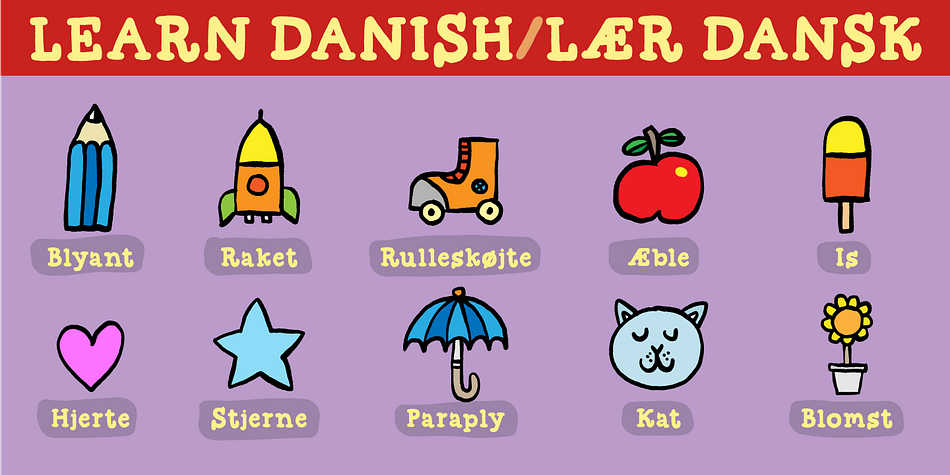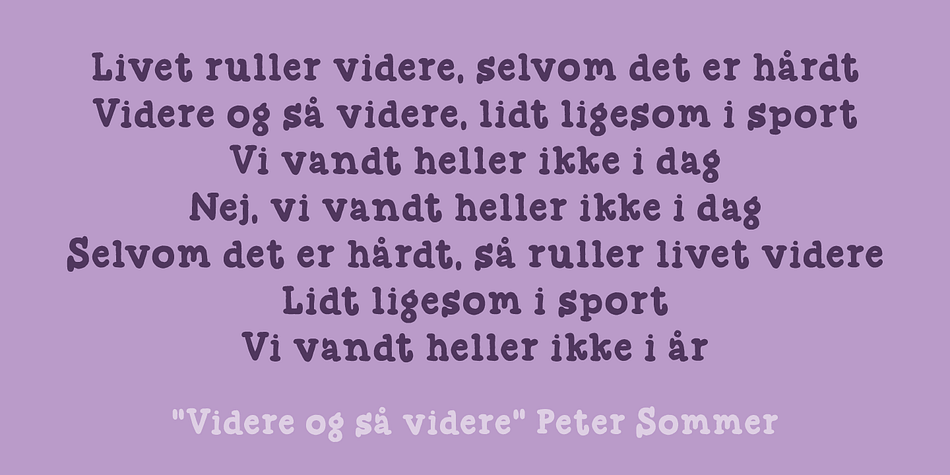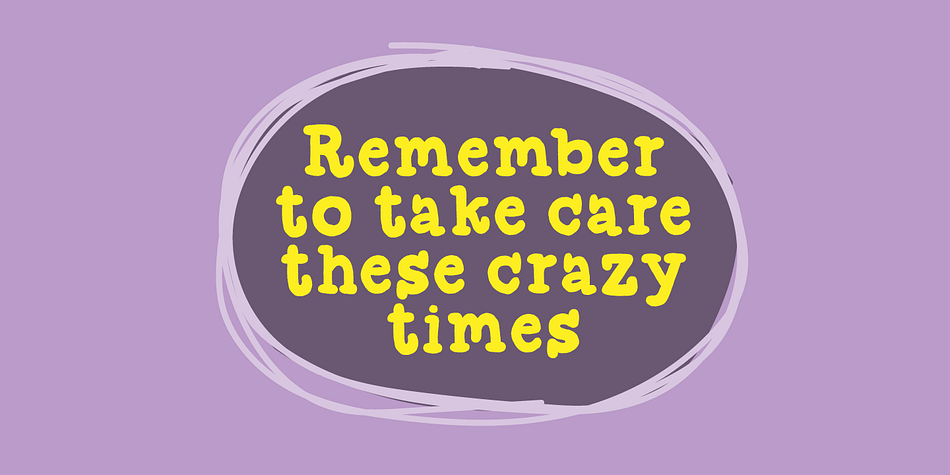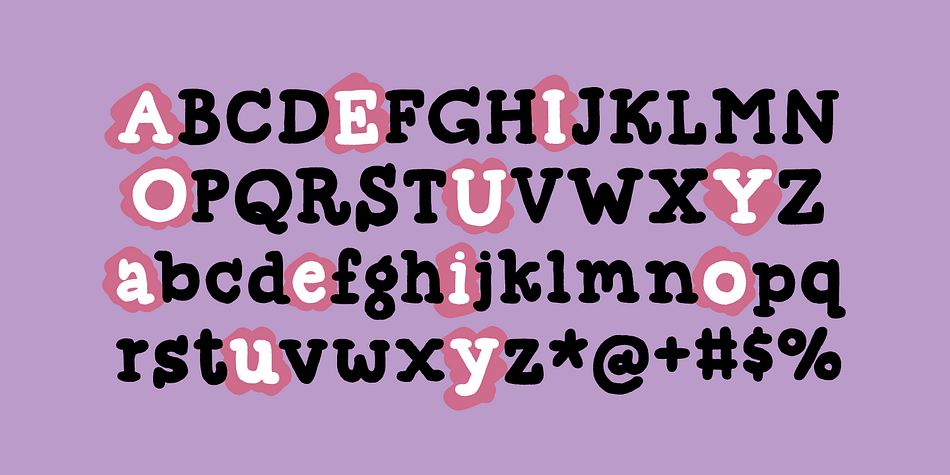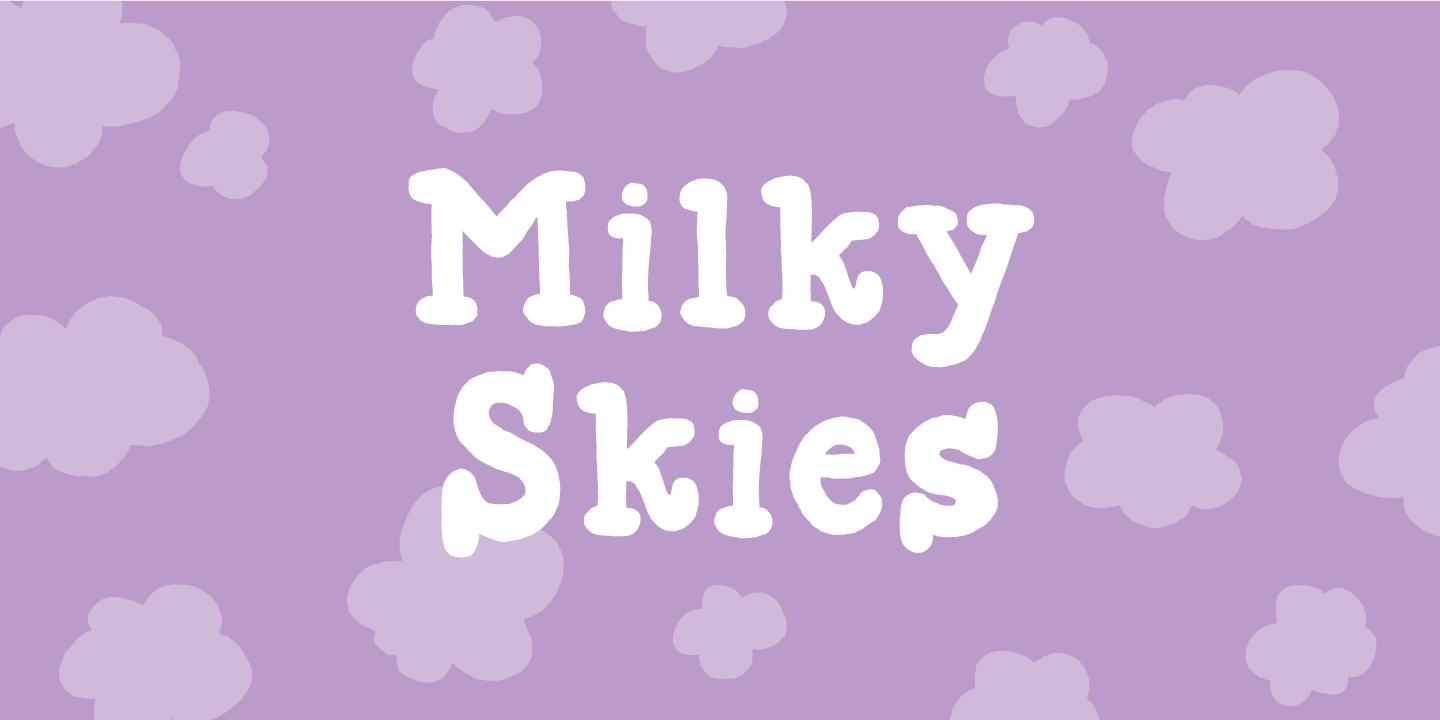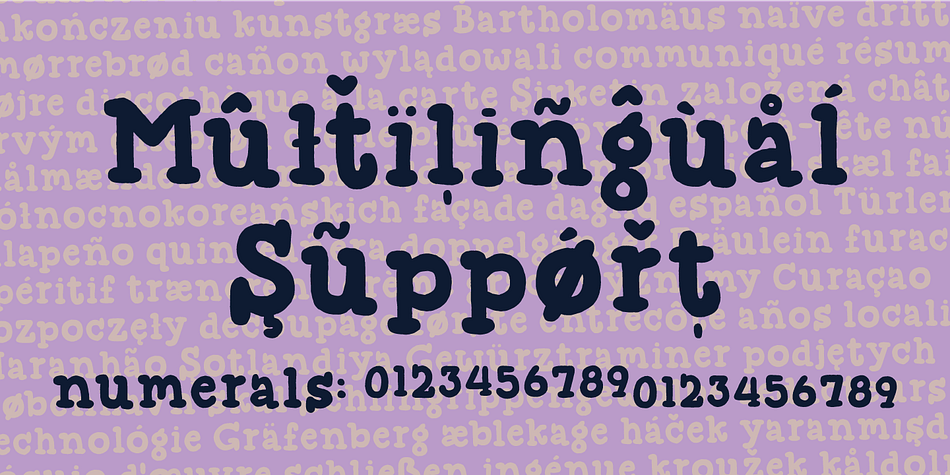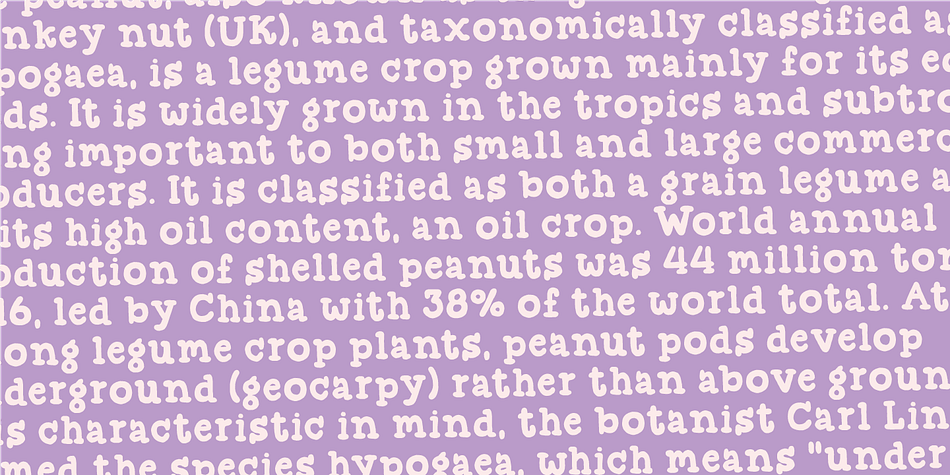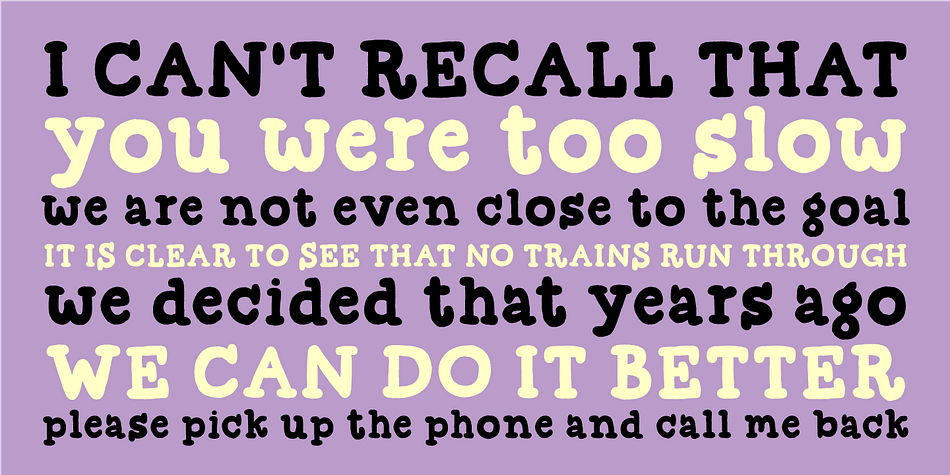
Milky Skies
Designed by Jakob Fischer, Milky Skies is a hand display and hand drawn font family. This typeface has two styles and was published by Bogstav.
Milky Skies is like a typewriter that was out in the rain all night - all wobbly and worn, but with the well-known details of a typewriter, just a bit…well a lot…out of the ordinary!
Although being awkward, Milky Skies is surprisingly legible. I’d like that the font should be used for labels, toys for kids, candy or any kind of organic product. It even looks really well with headlines or shoutouts in all-caps!